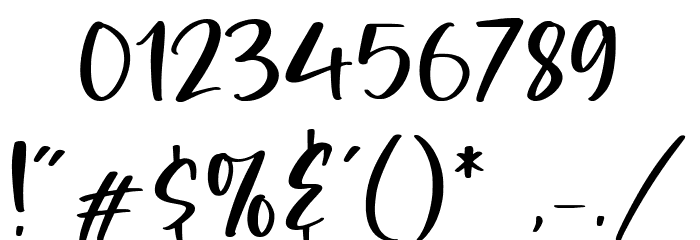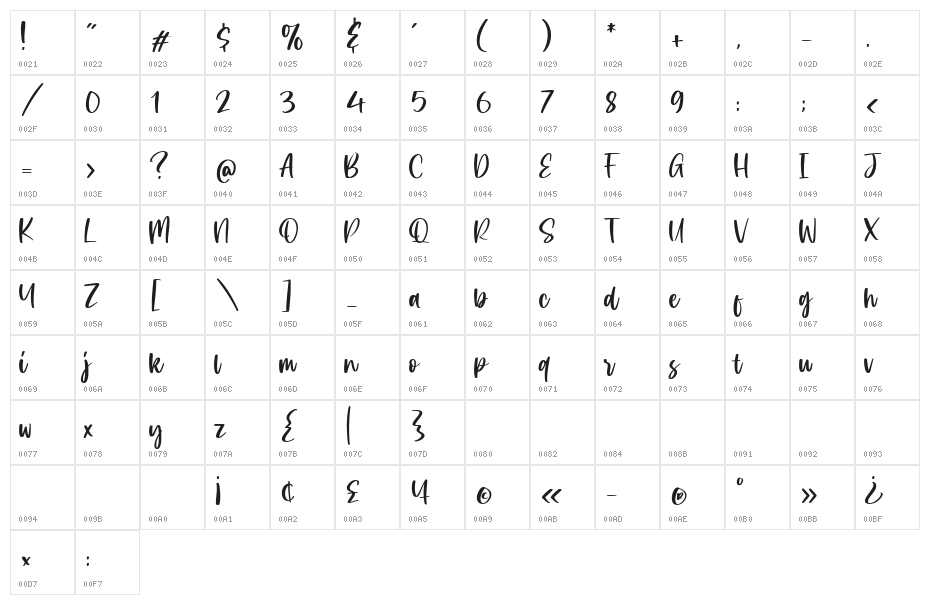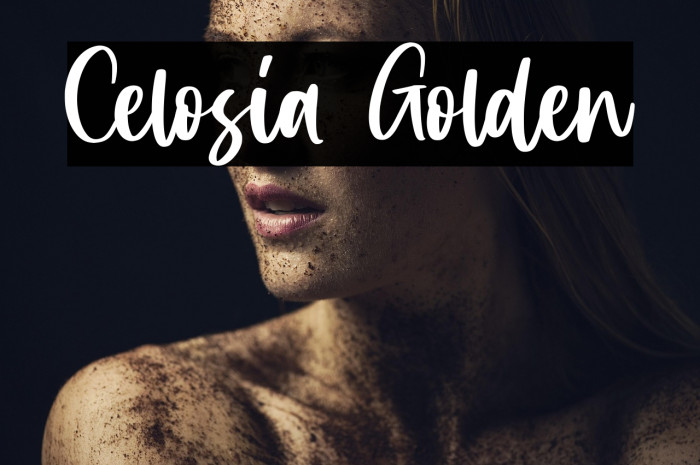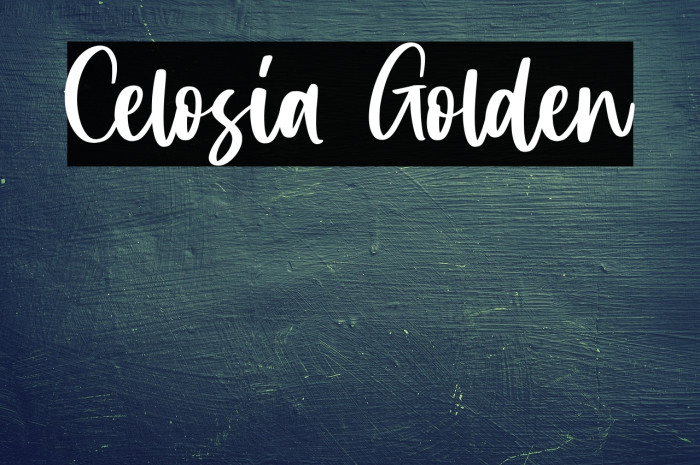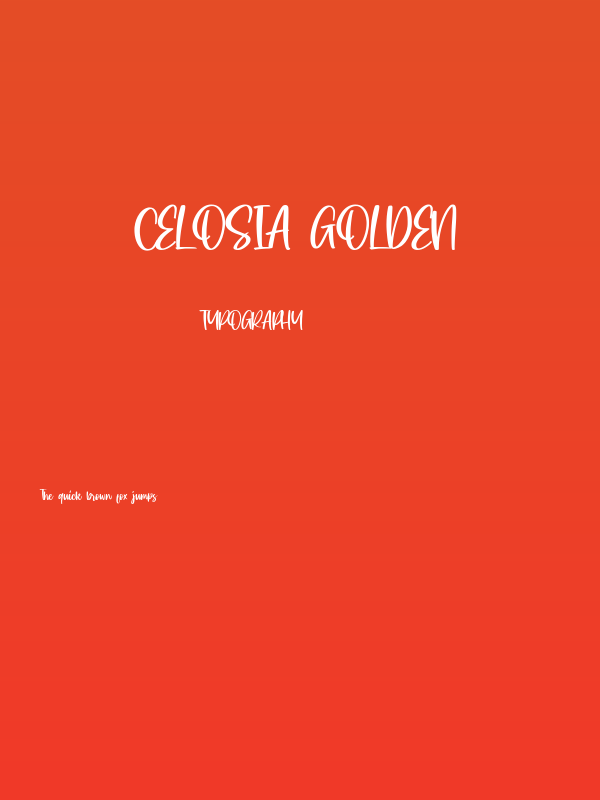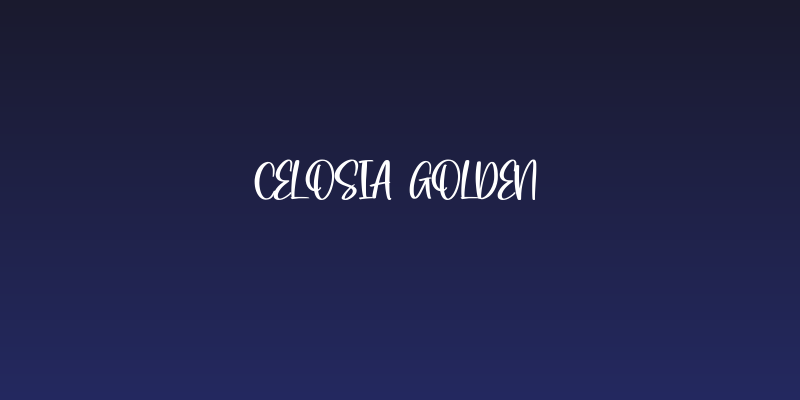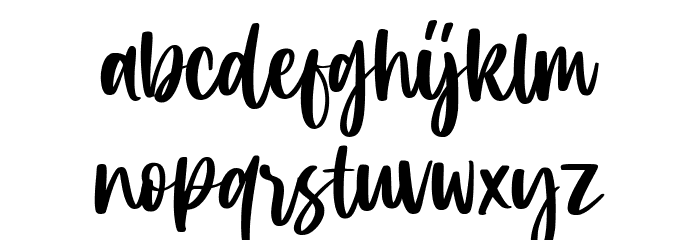
Celosia Golden Font
Celosia Golden Description
This font features a lively and expressive handwritten style, characterized by its fluid and dynamic strokes. The uppercase letters are bold and slightly slanted, giving a sense of movement and energy. The lowercase letters maintain a consistent flow, with some characters featuring playful loops and curves. The numerals are well-integrated, matching the overall style with their rounded and slightly exaggerated forms. Special characters are creatively designed, adding to the font's whimsical and artistic appeal. This font is perfect for projects that require a personal and creative touch.
| Proposed Projects | Ideal for greeting cards, invitations, branding, and social media graphics. |